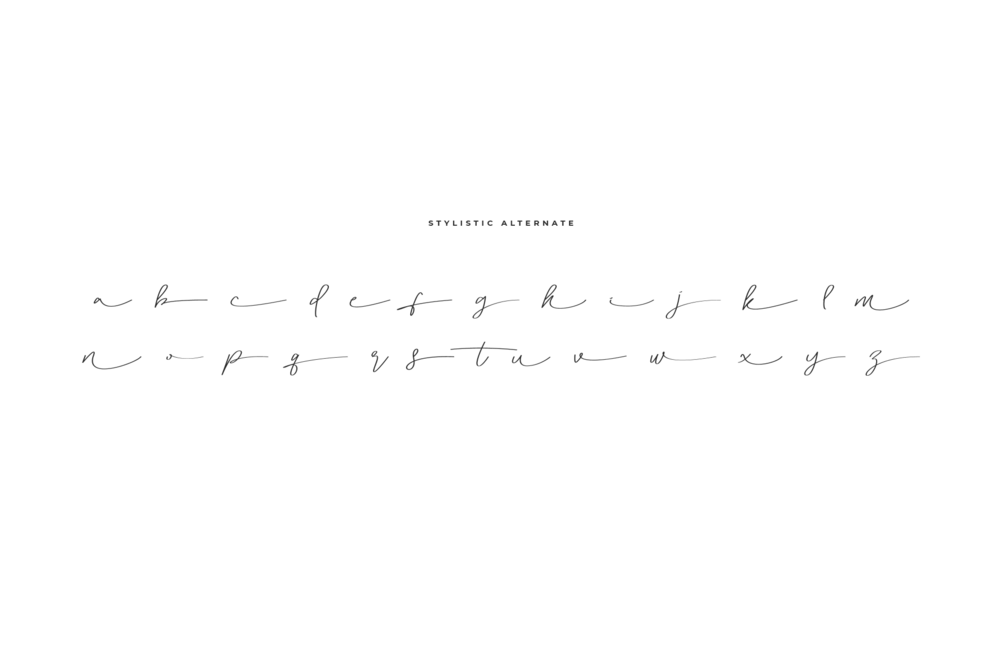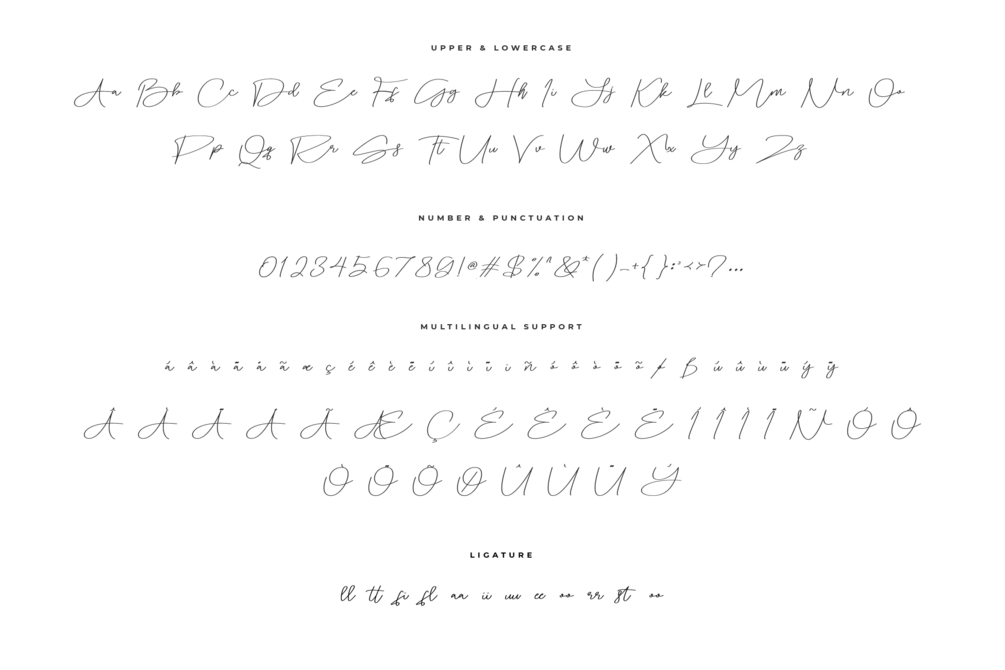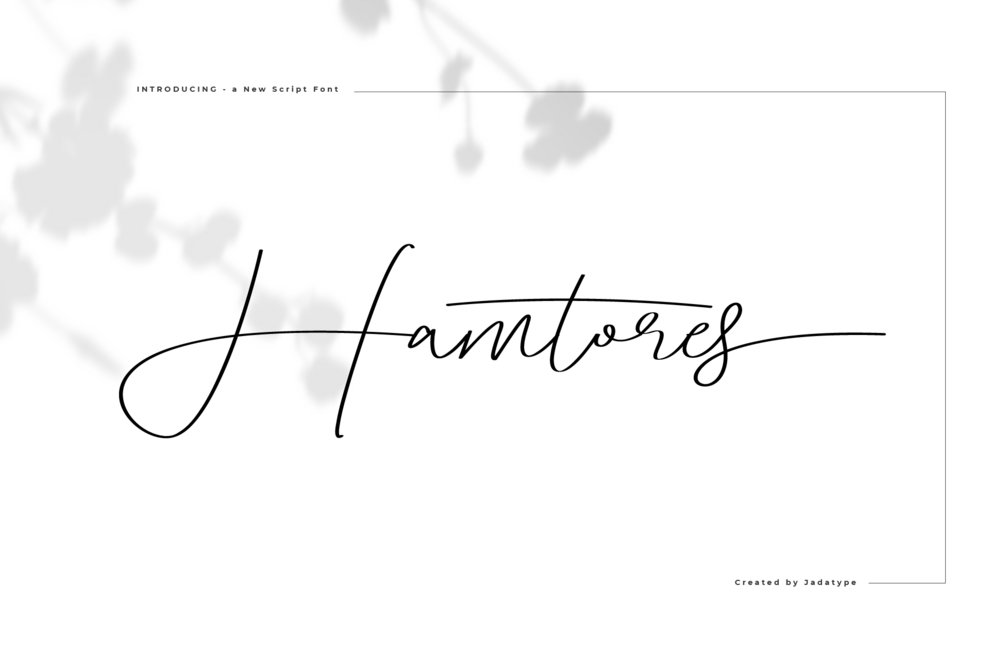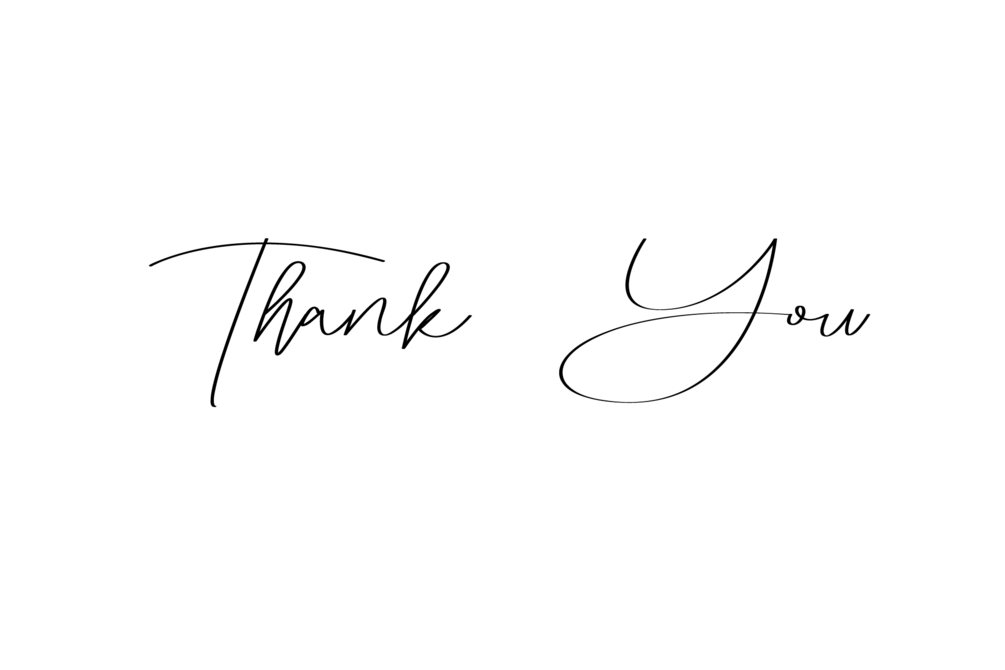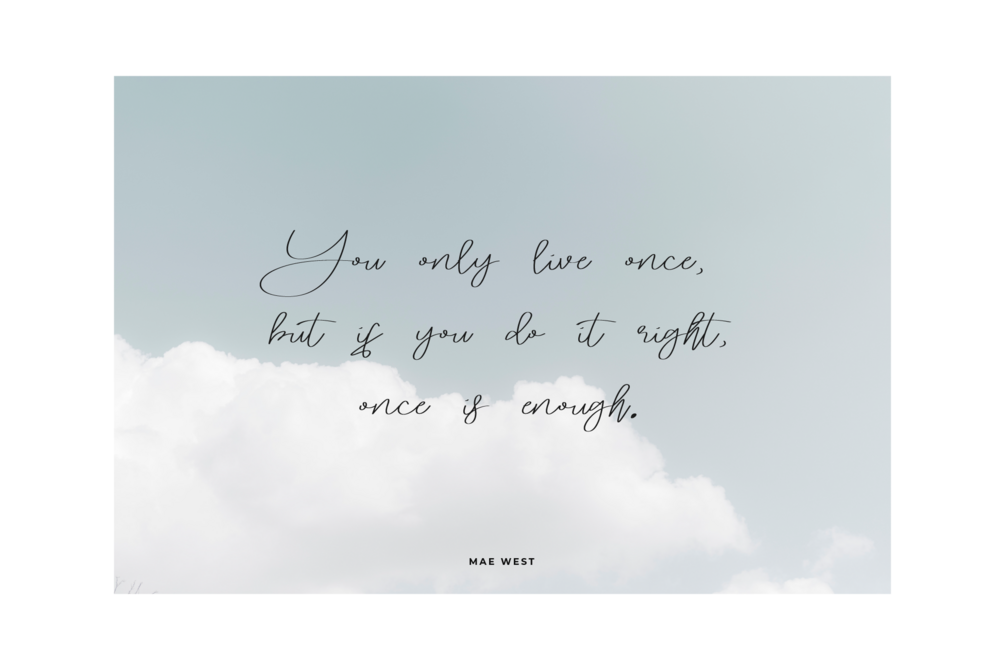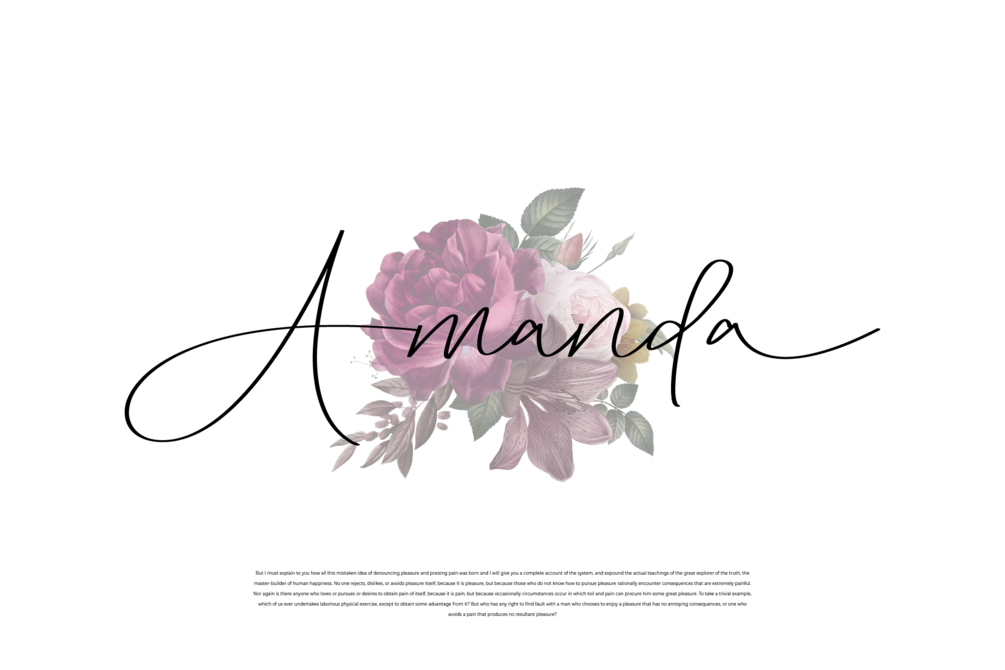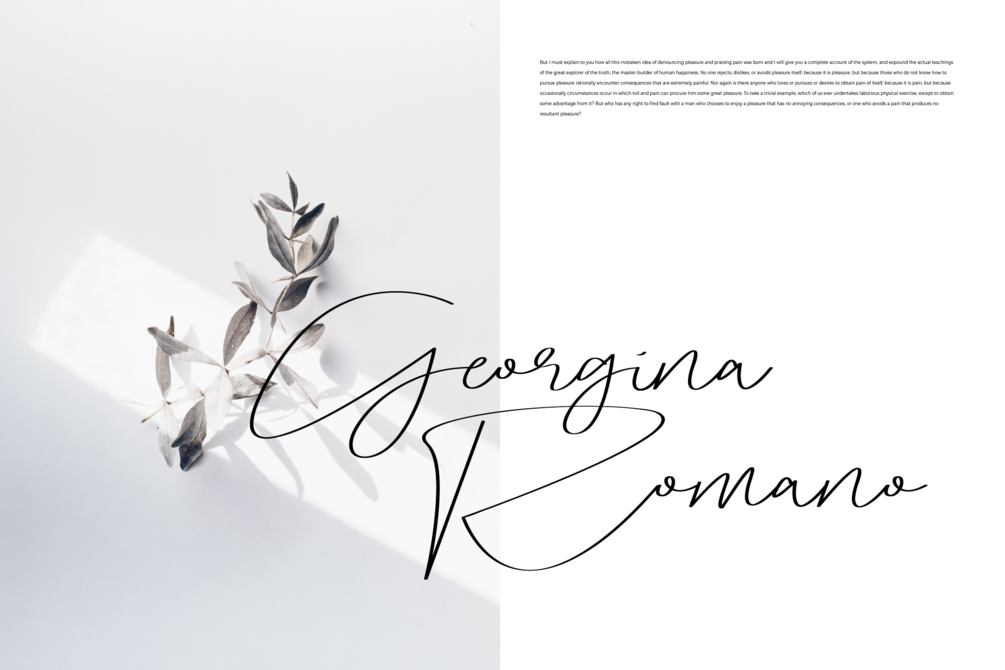
Hamtores Font
Hamtores is a script font that comes with a stylish line. suitable for product, Branding, social media, logotype and so on. contains standard English letters, numbers, punctuation, and several accents that support multilingualism.